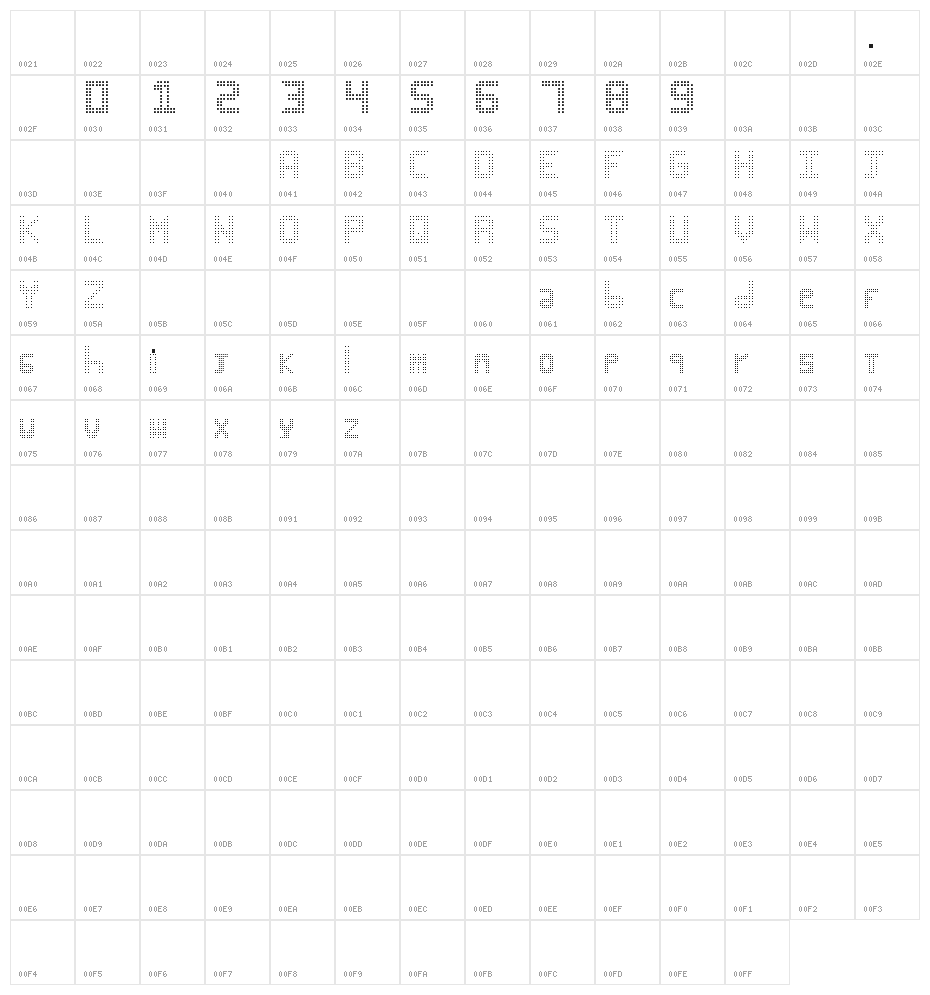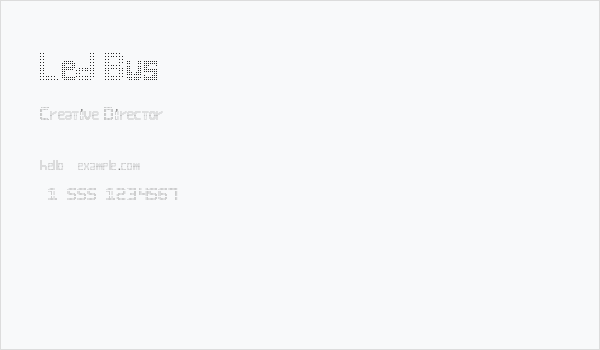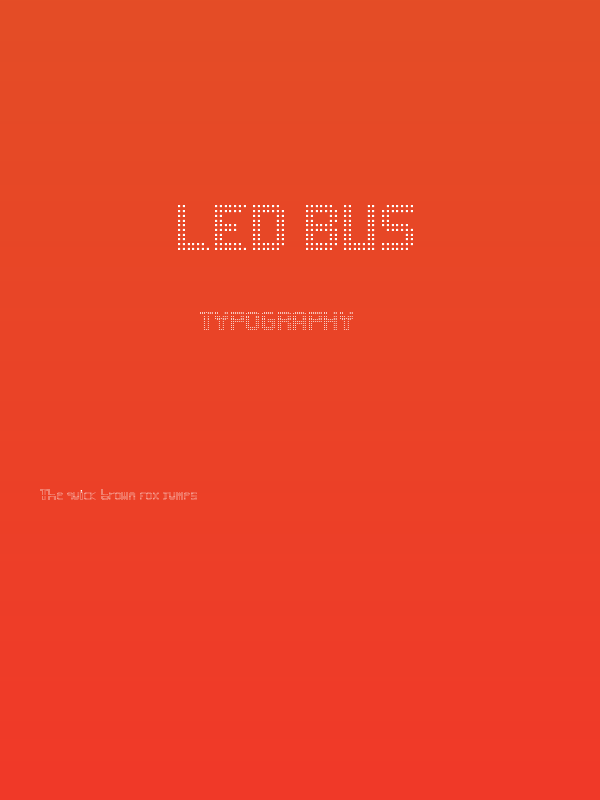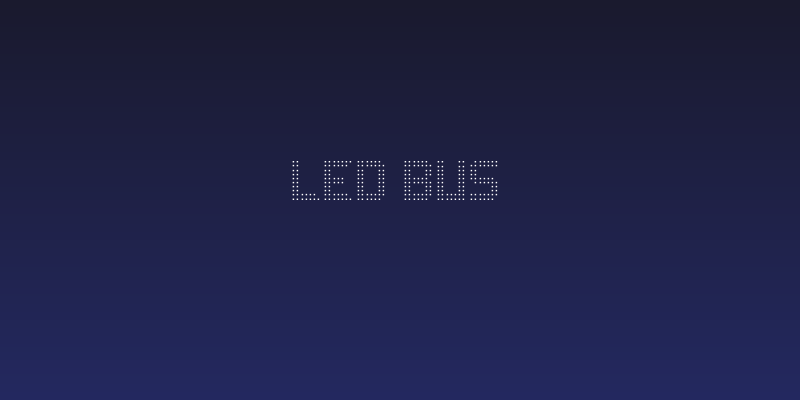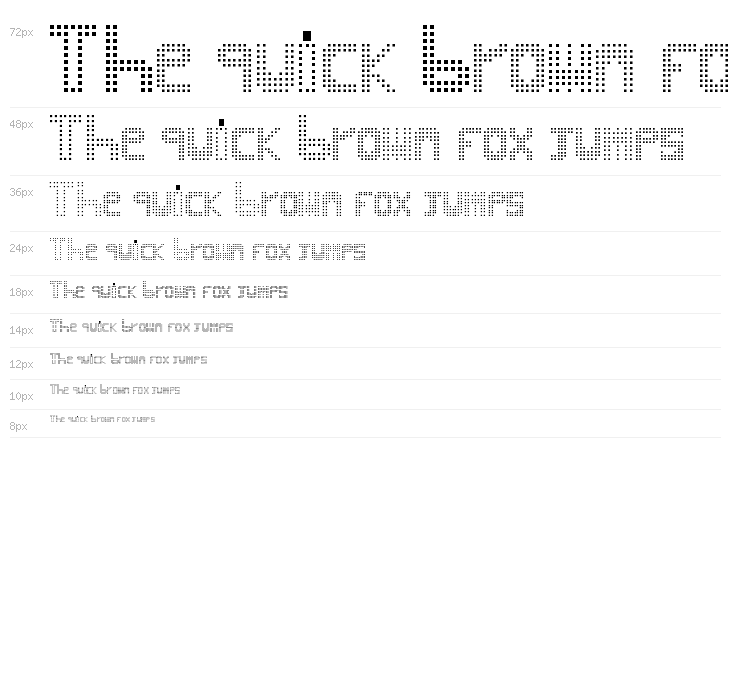
Led Bus Font
| Cas d'utilisation | Headlines, Logos, Digital Displays |
| Projets proposés | Ideal for digital displays, tech-themed designs, electronic signage, and modern branding projects. |